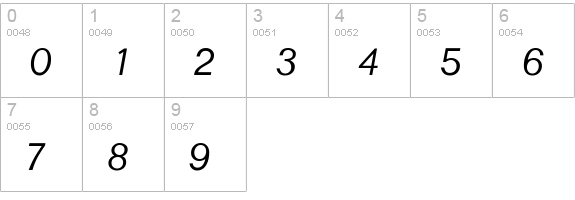
Focus-Light-Italic Font Details
Focus-Light-Italic is a refined, elegant, italic variant in the Focus typeface family \xE2\x80\x94 well suited to elegant body text, refined sub-headings, and luxury branding.
Introducing Focus-Light-Italic, a sleek and elegant font that exudes sophistication and modernity. The italicized design adds a touch of flair and style to any project, making it perfect for branding, editorial design, and more. The clean lines and subtle curves of Focus-Light-Italic create a visually appealing look that is both professional and eye-catching. This versatile font is perfect for a wide range of design projects, from logos and business cards to websites and social media graphics. Its light weight adds a delicate touch to any text, while the italic styling brings a sense of movement and flow. Whether you're looking to create a sleek and contemporary look or add a touch of elegance to your designs, Focus-Light-Italic is sure to impress. Best of all, Focus-Light-Italic is available for free download at FontsMarket.com! Don't miss out on the opportunity to add this stunning font to your collection and elevate your designs to the next level. Download Focus-Light-Italic today and start creating beautiful, professional-looking projects with ease.